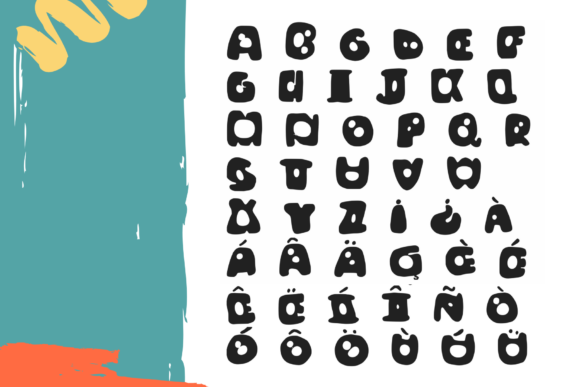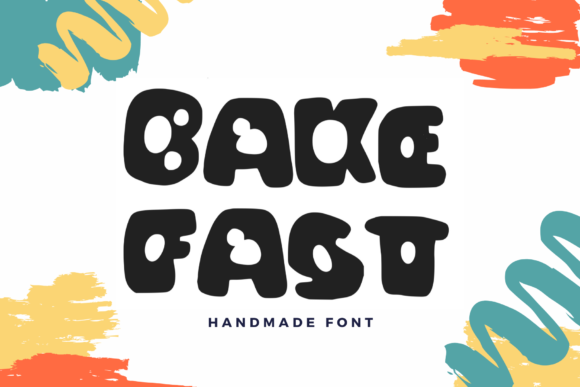
Bake Fast Font: The Perfect Addition to Your Children’s Design Projects
Are you a designer or crafter looking for a fun and playful font to add to your children’s design projects? Look no further than Bake Fast Font! This funky and chunky lettered display font is perfect for creating eye-catching and engaging designs that kids will love. In this article, we’ll take a closer look at Bake Fast Font and explore its features, benefits, and uses.
What is Bake Fast Font?
Bake Fast Font is a unique and creative font that is designed to add a touch of fun and whimsy to your designs. With its chunky and playful lettering style, this font is perfect for creating bold and eye-catching headlines, titles, and text. The font is highly legible, making it easy to read and understand, even for young children.
Key Features of Bake Fast Font
- Funky and Chunky Lettering Style: Bake Fast Font features a unique and playful lettering style that is sure to grab attention.
- Perfect for Children’s Designs: This font is specifically designed for children’s designs, making it perfect for projects such as kids’ party invitations, children’s books, and educational materials.
- Highly Legible: The font is designed to be highly legible, making it easy to read and understand, even for young children.
- Works Well with Bright Colors: Bake Fast Font looks amazing when paired with bright and bold colors, making it perfect for creating fun and playful designs.
Benefits of Using Bake Fast Font
So, why should you use Bake Fast Font in your designs? Here are just a few benefits of using this amazing font:
- Adds a Touch of Fun and Whimsy: Bake Fast Font adds a touch of fun and whimsy to your designs, making them more engaging and appealing to kids.
- Perfect for Branding and Identity: This font is perfect for creating fun and playful brand identities for kids’ products and services.
- Versatile: This font can be used for a wide range of design projects, from children’s books to party invitations and more.
Uses of Bake Fast Font
So, what can you use Bake Fast Font for? Here are just a few ideas to get you started:
- Children’s Books: Use Bake Fast Font to create fun and engaging children’s books that kids will love.
- Kids’ Party Invitations: This font is perfect for creating fun and playful kids’ party invitations that will get your little ones excited.
- Educational Materials: Bake Fast Font is a great choice for educational materials, such as worksheets, activity sheets, and more.
- Kids’ Product Branding: Use this font to create fun and playful brand identities for kids’ products and services.
Tips for Using Bake Fast Font
Here are a few tips for using Bake Fast Font in your designs:
- Pair with Bright Colors: Pair Bake Fast Font with bright and bold colors to create fun and playful designs.
- Use for Headlines and Titles: Use this font for headlines and titles to add a touch of fun and whimsy to your designs.
- Experiment with Different Sizes: Experiment with different font sizes to create visual interest and hierarchy in your designs.
In conclusion, Bake Fast Font is a fun and playful font that is perfect for children’s design projects. With its chunky and playful lettering style, this font is sure to grab attention and add a touch of fun and whimsy to your designs. Whether you’re a designer or crafter, Bake Fast Font is a great choice for creating engaging and fun designs that kids will love.